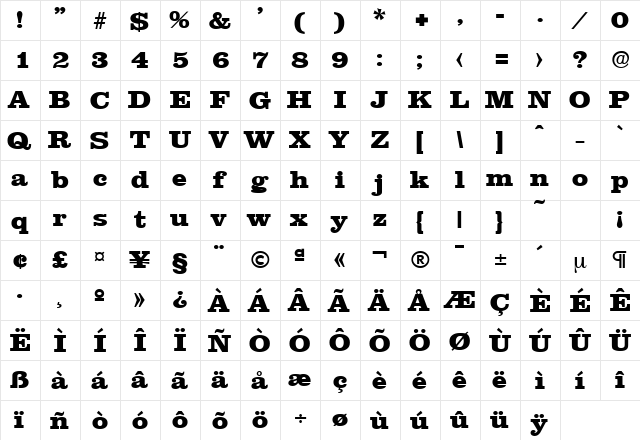
Clarendon-Serial-Heavy Regular
Design Context for Clarendon-Serial-Heavy Typeface
Clarendon-Serial-Heavy combines the readability of serif typography with the visual weight of a slab construction, resulting in a typeface that feels both authoritative and approachable.
Suited to magazines, political campaign materials, bold packaging, and any setting where authority matters.
Pro Tip: Use Clarendon-Serial-Heavy for headlines and subheadings where its slab serifs can make an impression. It also holds up well in mid-size body copy thanks to its sturdy construction.